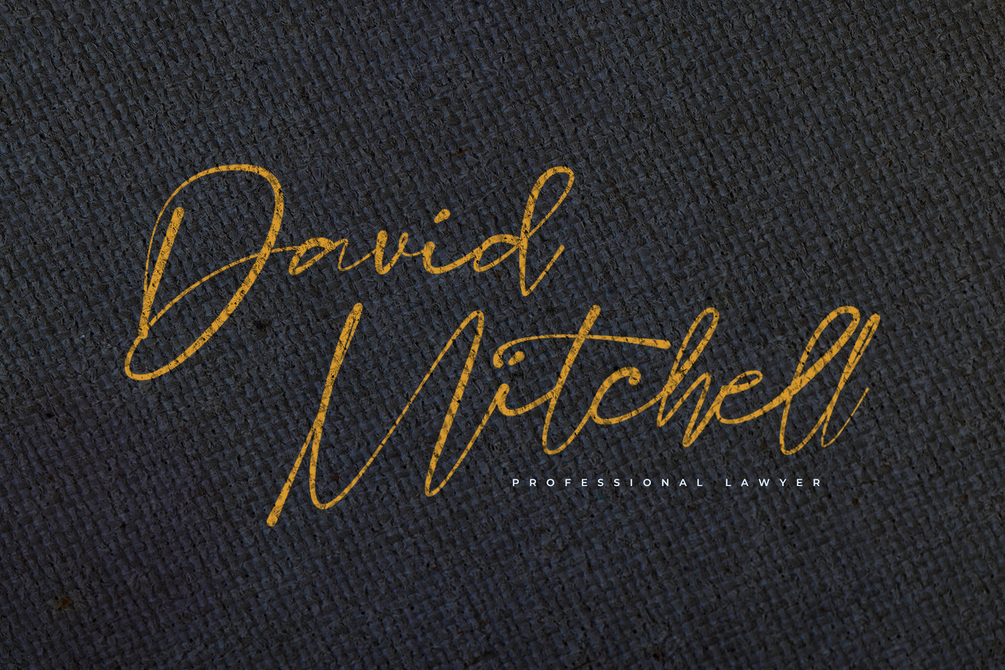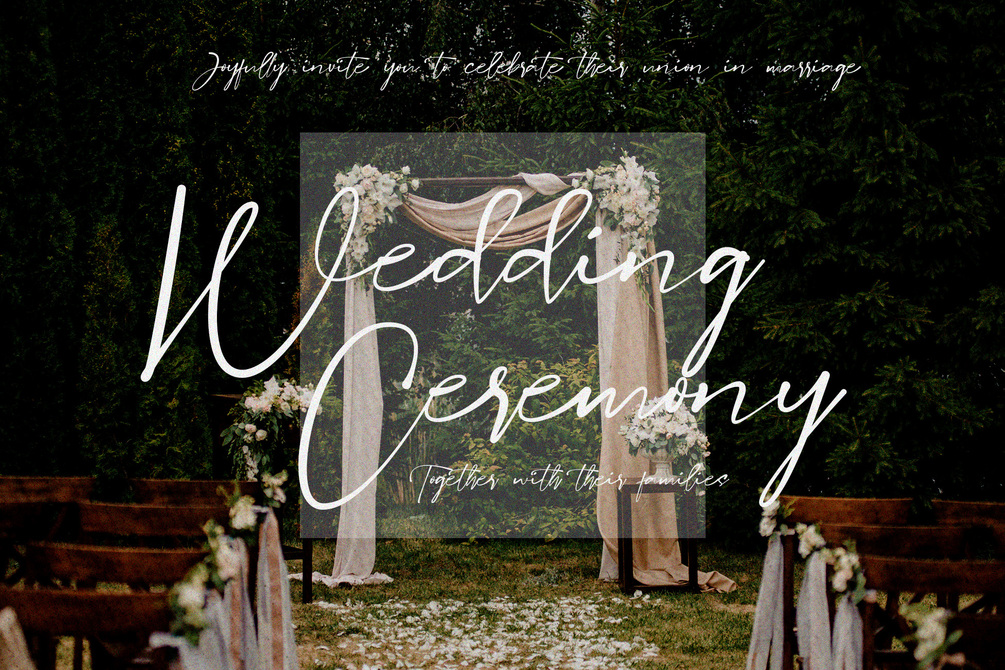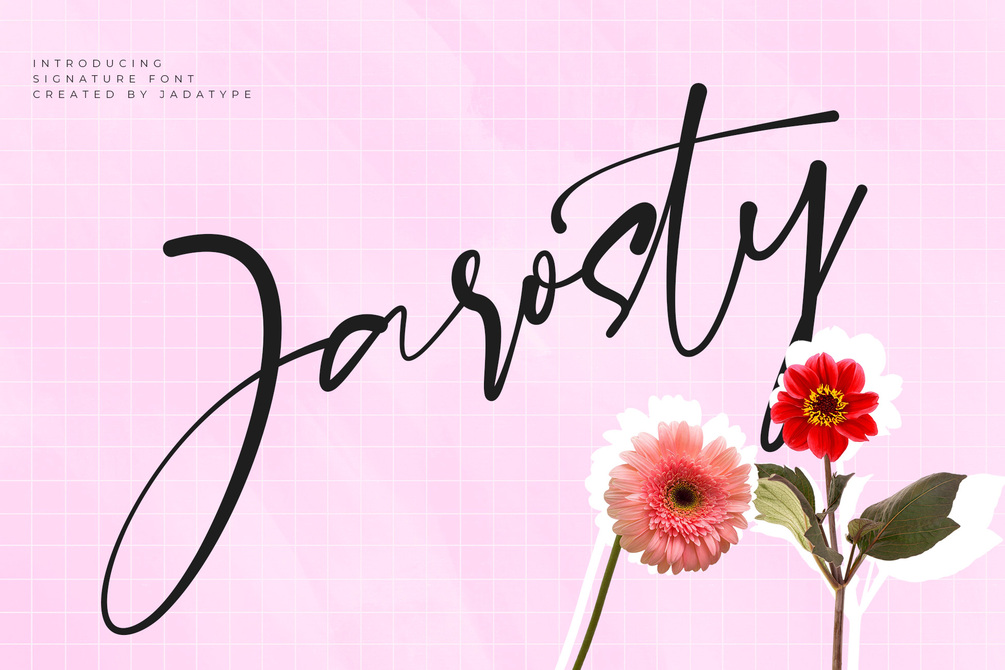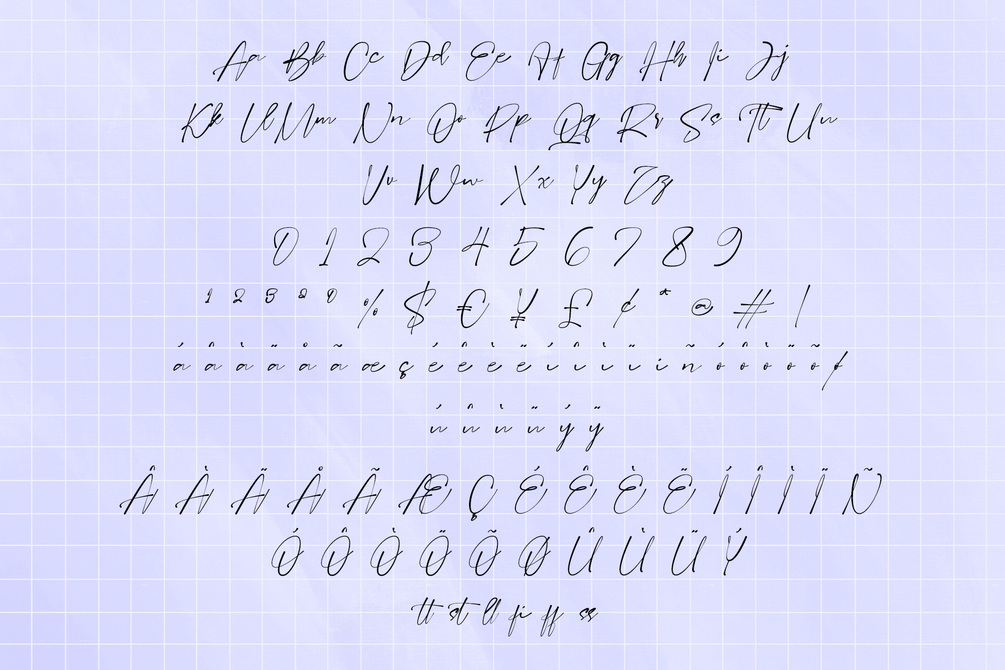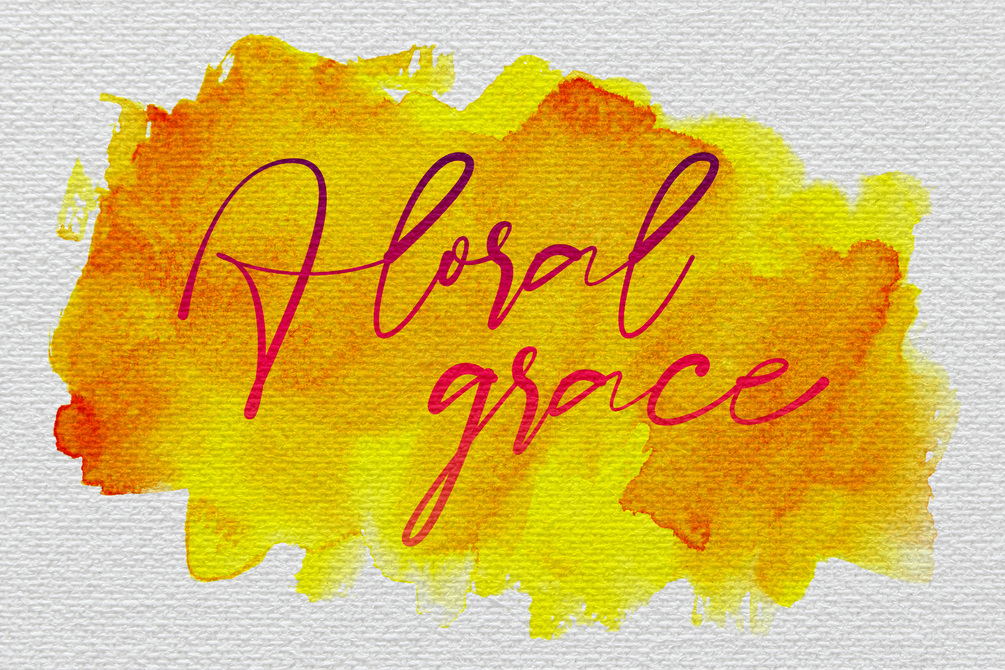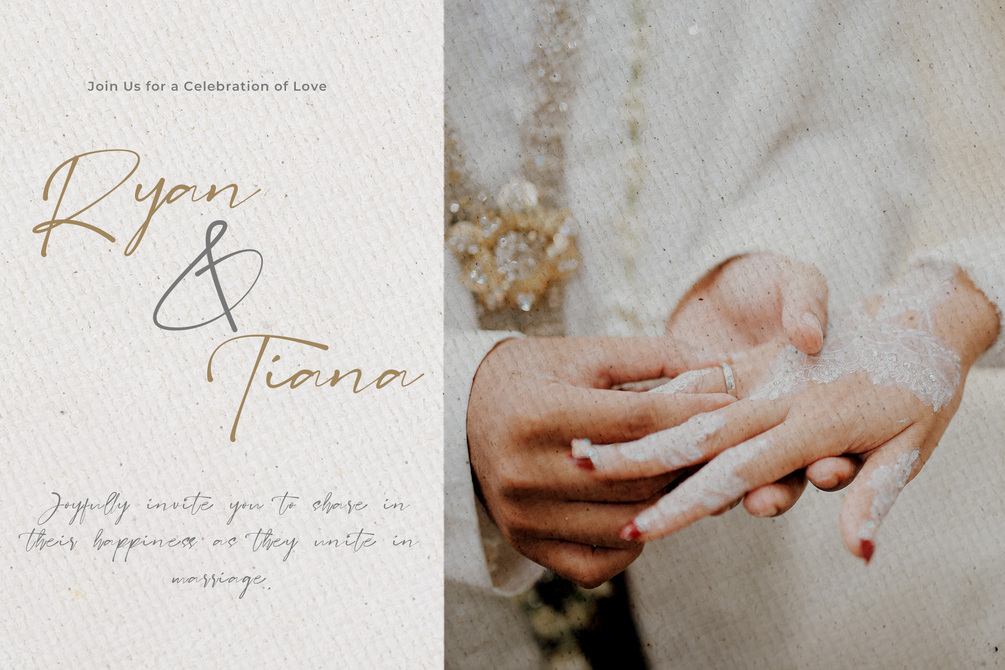
Jarosty Font
Jarosty is a calligraphy font that comes with signature style. Suitable for product, Branding, social media, logotype and so on. contains standard English letters, numbers, punctuation, and several accents that support multilingualism.